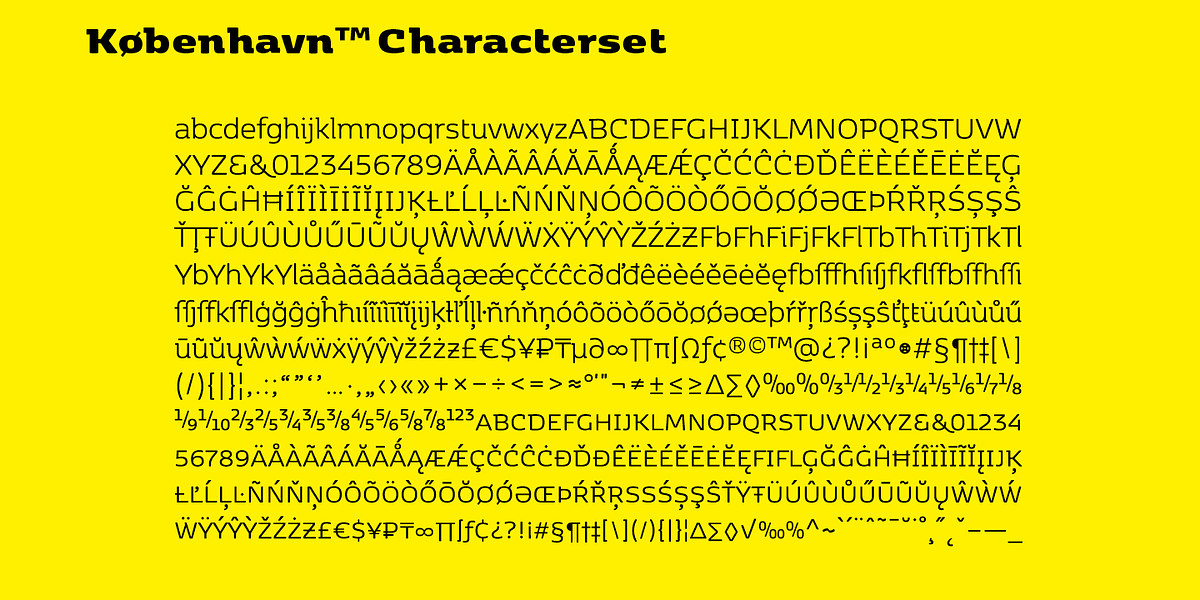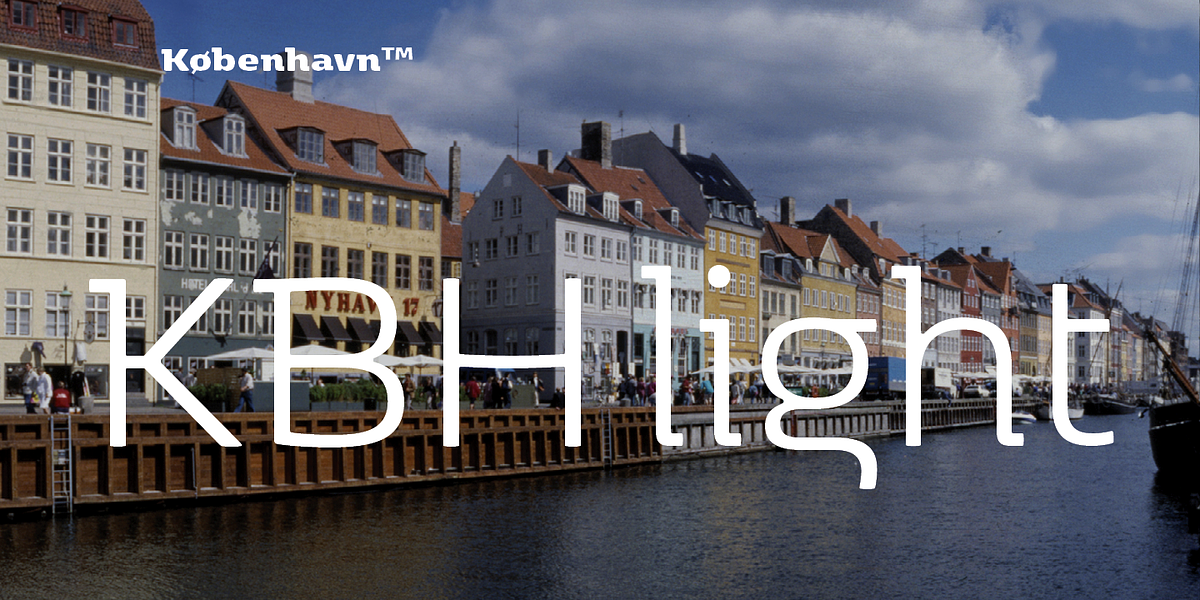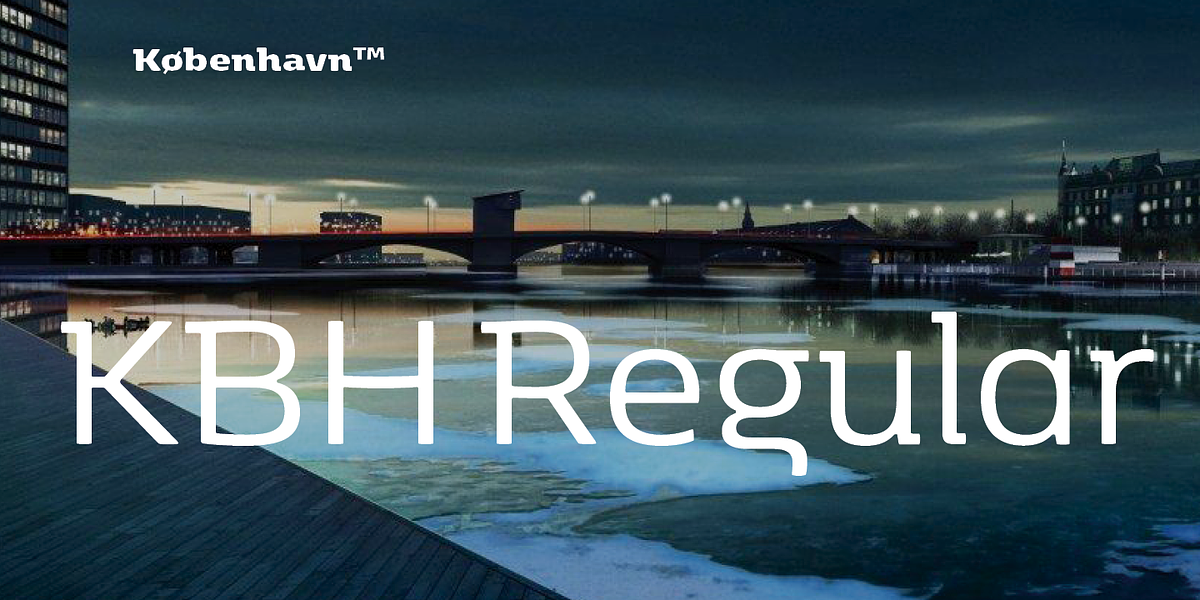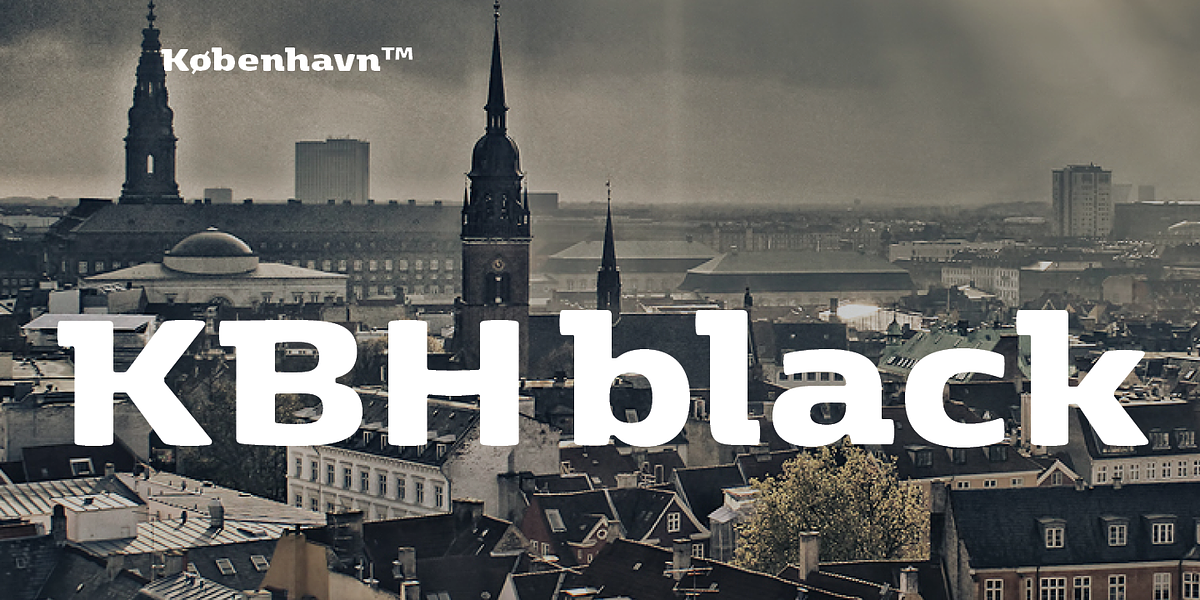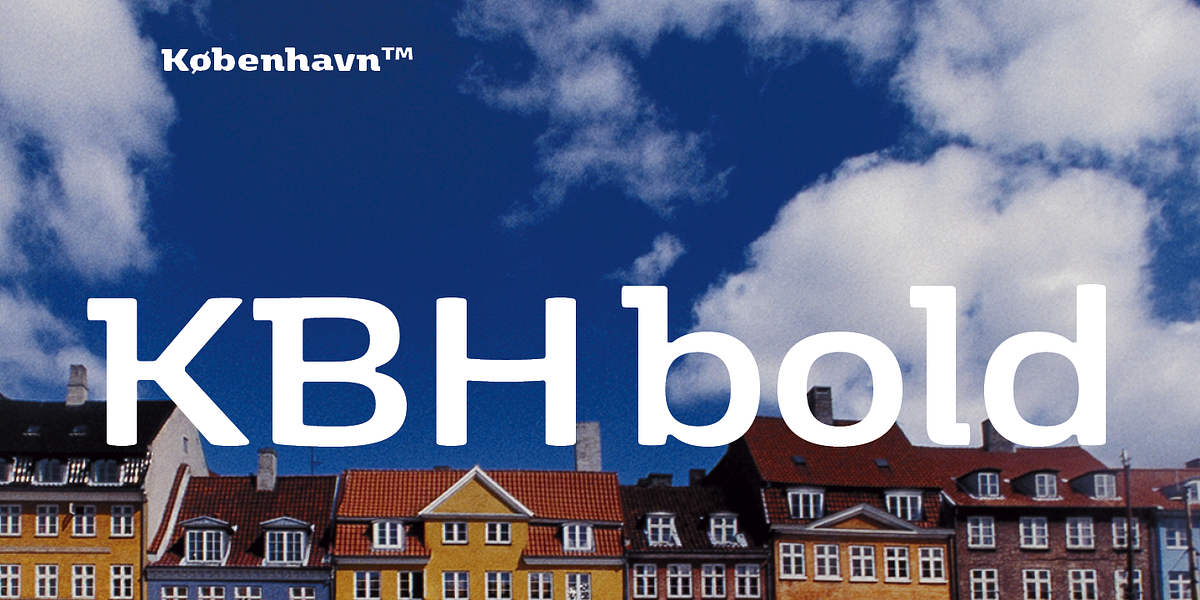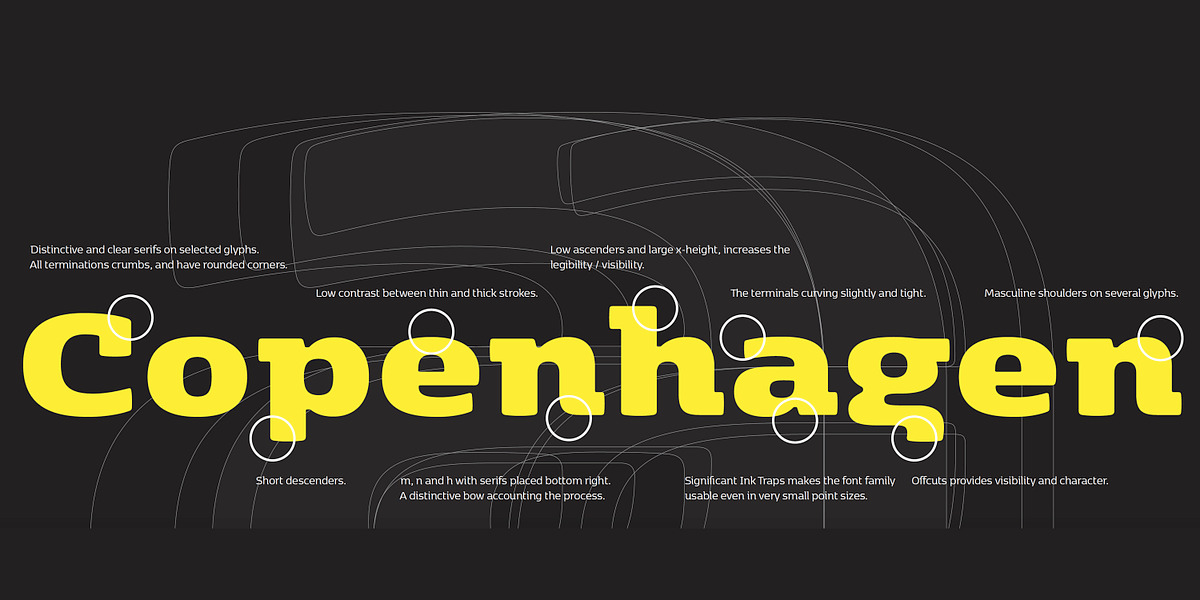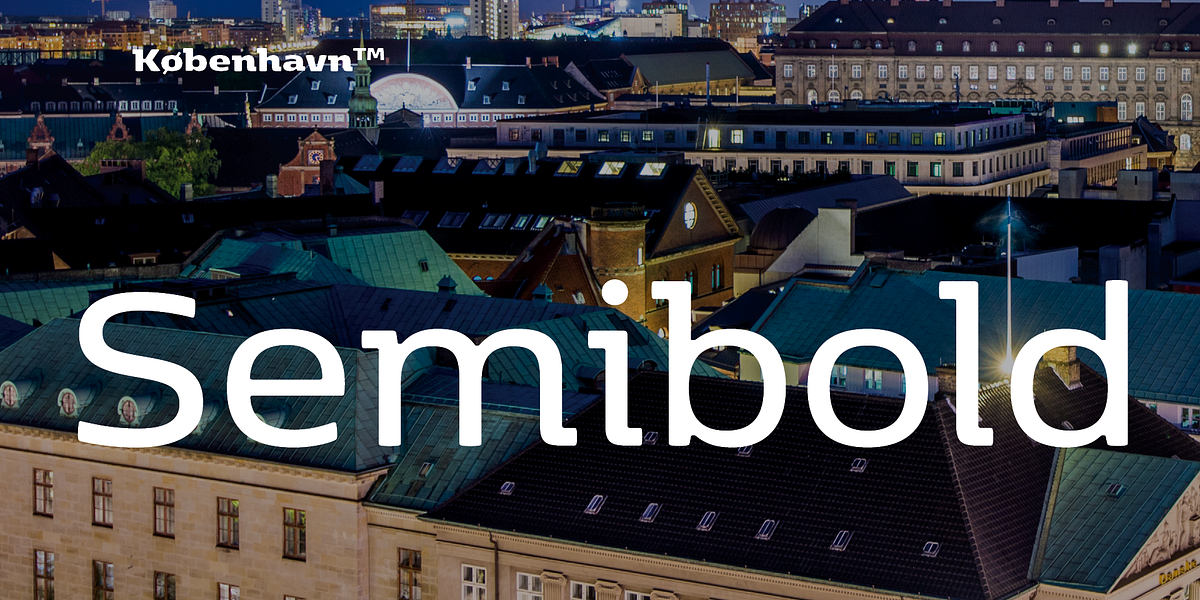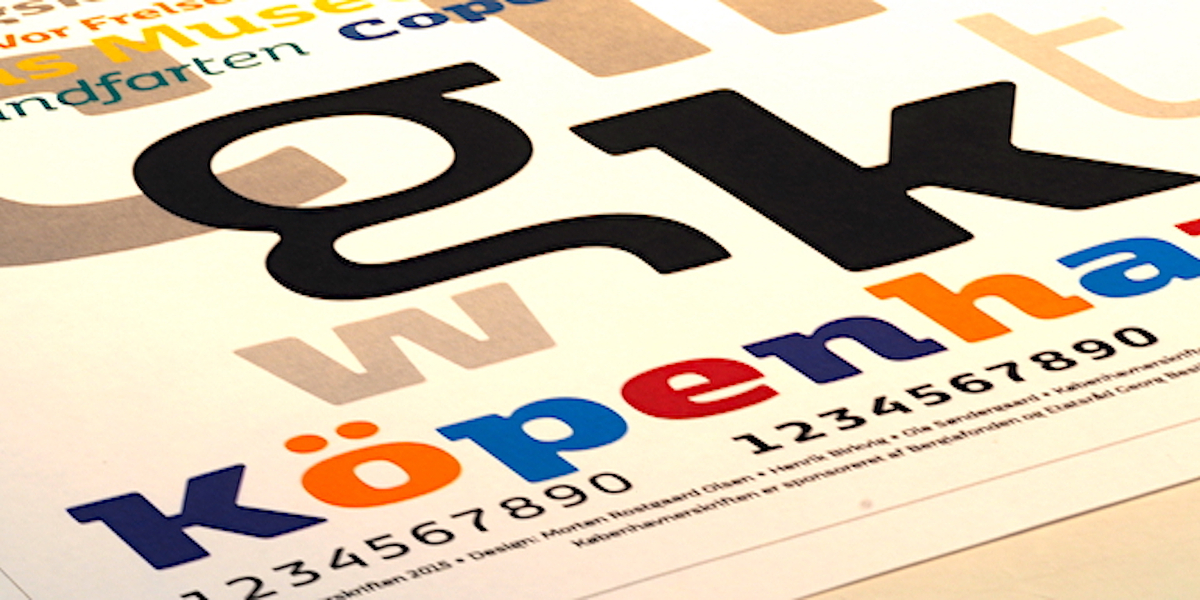
FP København
FP København is a humanist sans serif typeface designed to represent the city of Copenhagen. Inspired by Danish design from the 20th century, it features rounded corners and a relatively low x-height. The font family comes in 23 styles including uprights, italics, stencils, small caps, pictos, a sprayed style, and various dingbats. FP København incorporates OpenType features like ligatures and contextual alternates for increased versatility.